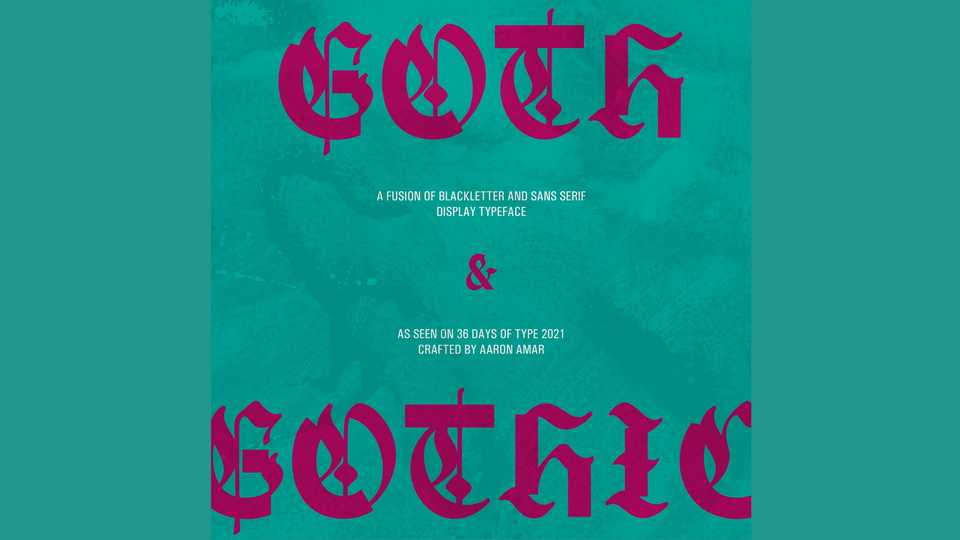
Goth and Gothic Font › Fontesk – Download Grátis
Download Goth and Gothic font, a display typeface with a concept of mixing blackletter and grotesk type elements to from a grungy look.
Designer: Aaron Amar